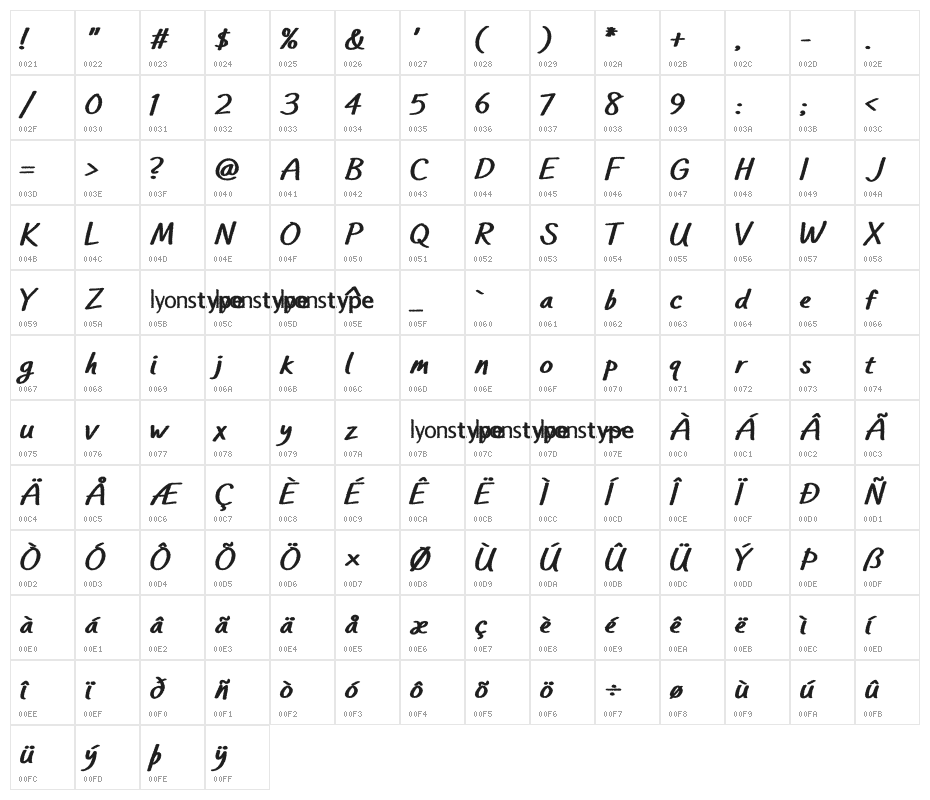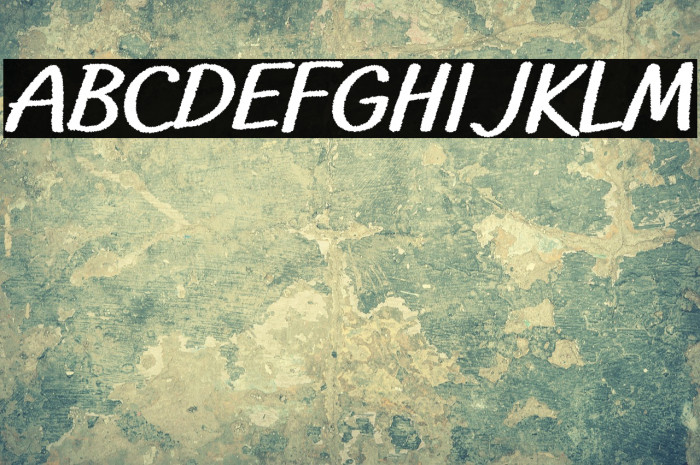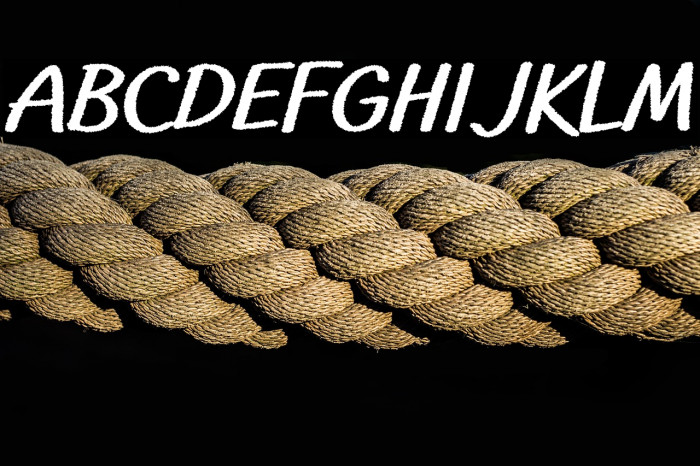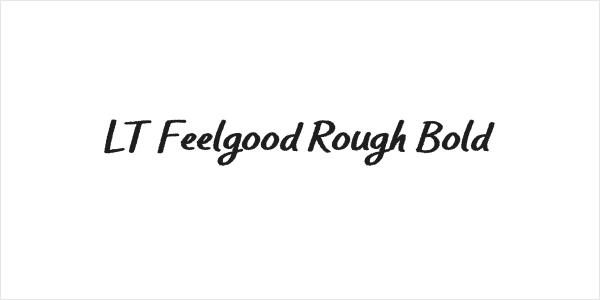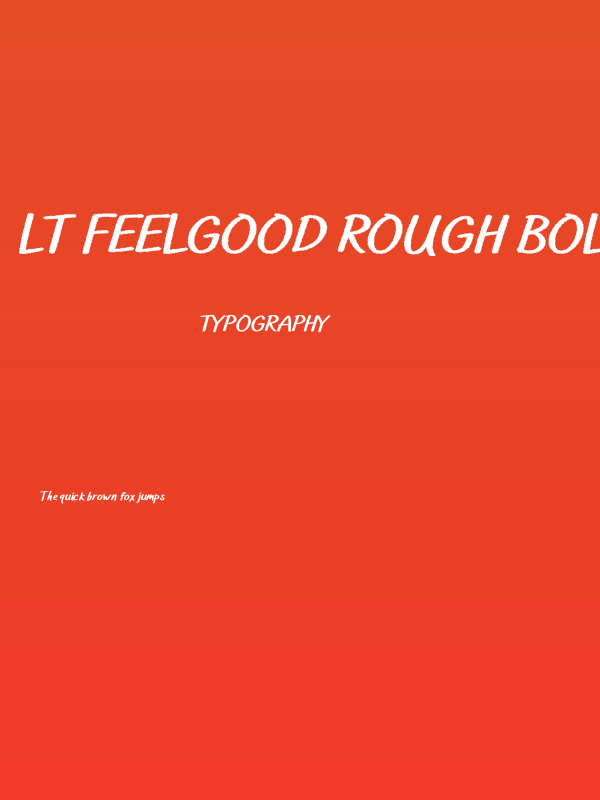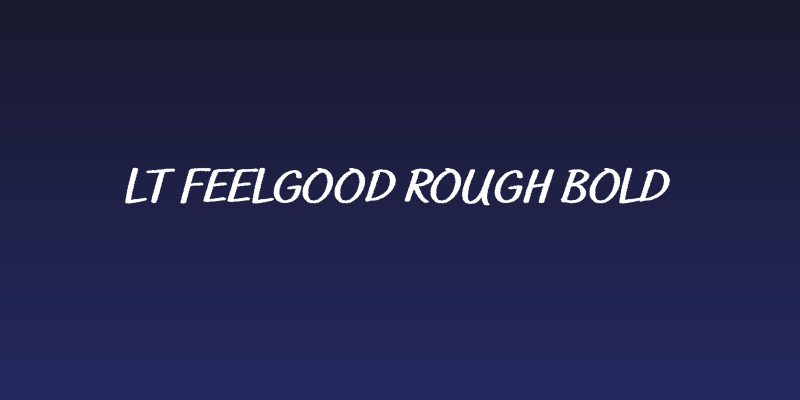
LT Feelgood Rough Bold Font
LT Feelgood Rough Bold Description
This font exudes a playful and energetic vibe with its bold, rough strokes and handwritten style. The characters are slightly slanted, adding a dynamic feel to the text. The rough edges give it a textured appearance, reminiscent of brush strokes or chalk writing. The uppercase letters are bold and prominent, while the lowercase letters maintain a consistent flow, enhancing readability. Numbers and special characters are crafted with the same attention to detail, ensuring uniformity across all elements. This font is ideal for projects that require a personal touch or a casual, informal aesthetic.
| Proposed Projects | Perfect for greeting cards, posters, branding, and social media graphics. |